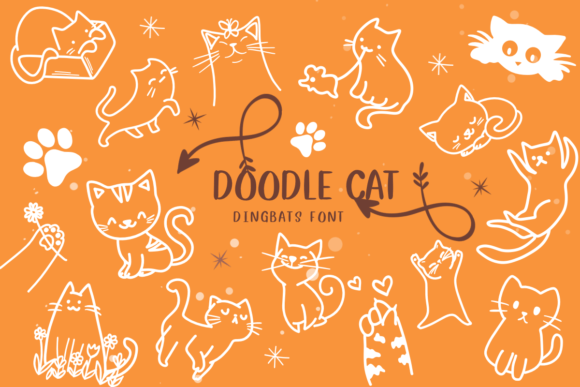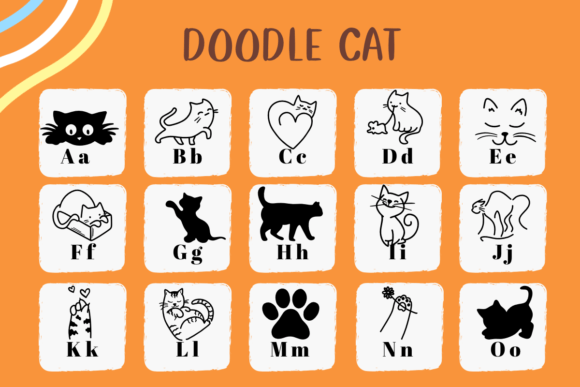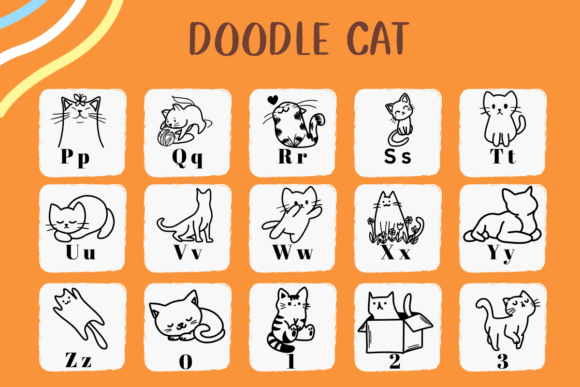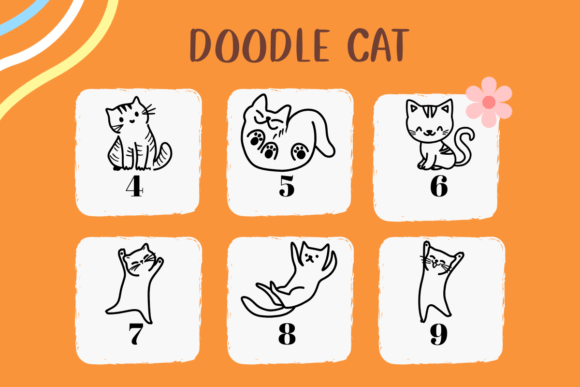
Doodle Cat Font: A Cute Dingbat Font for Creative DIY & Cricut Projects
About the Doodle Cat Font
Explore the possibilities with Doodle Cat Font, a font that offers both beauty and functionality. Doodle Cat is a cute dingbat font with a lovely theme. This font can enhance your creative projects such as wedding invitations, DIY, crafts, decorations, logos, and many other creative ideas.
Doodle Cat’s playful, hand-drawn style is ideal for projects requiring a lighthearted and approachable feel. It excels in headlines, logos, short text elements on packaging, and social media graphics. Avoid using it for large blocks of body text or UI elements where readability is paramount; its informal nature can hinder legibility in extended use.
Pairings that complement Doodle Cat include clean sans-serifs like Open Sans or Lato for a balanced contrast, or a more whimsical script font such as Pacifico for a cohesive, playful aesthetic. A geometric sans-serif could also add a touch of modern sophistication.
The overall personality is undeniably friendly and charming, making it perfect for brands targeting a younger demographic or those emphasizing creativity, craft, or children’s products.